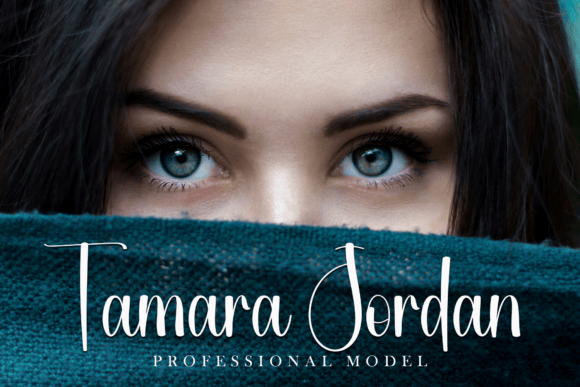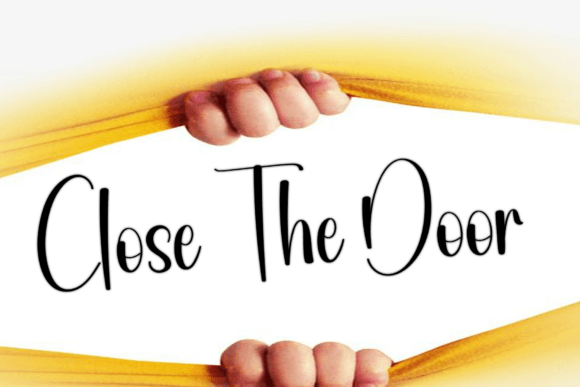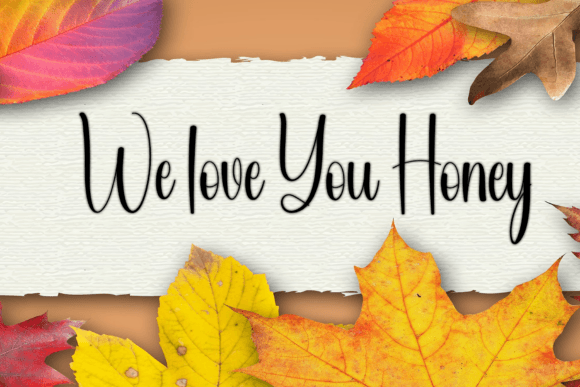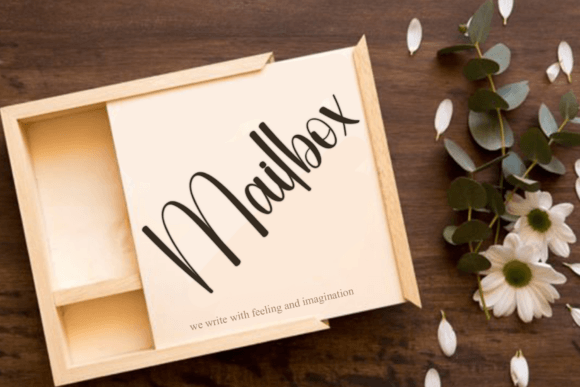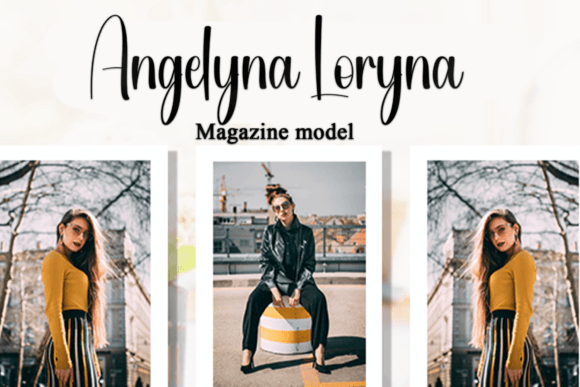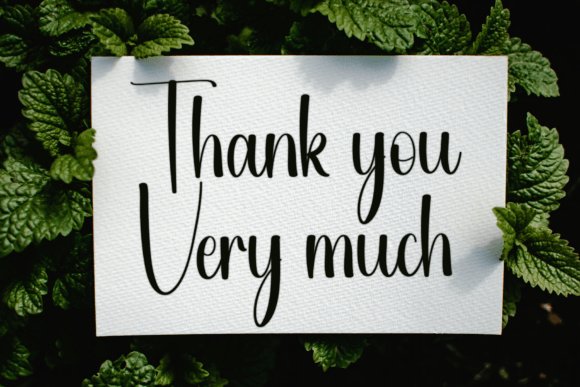
Introduction to Fattening Font
Fattening is a delightful handwritten font imbued with warmth and personality.
Its whimsical strokes and varied letterforms evoke a sense of authenticity and charm, making it perfect for conveying heartfelt messages Whether used for invitations, greeting cards, or branding, this font adds a touch of warmth to any design.